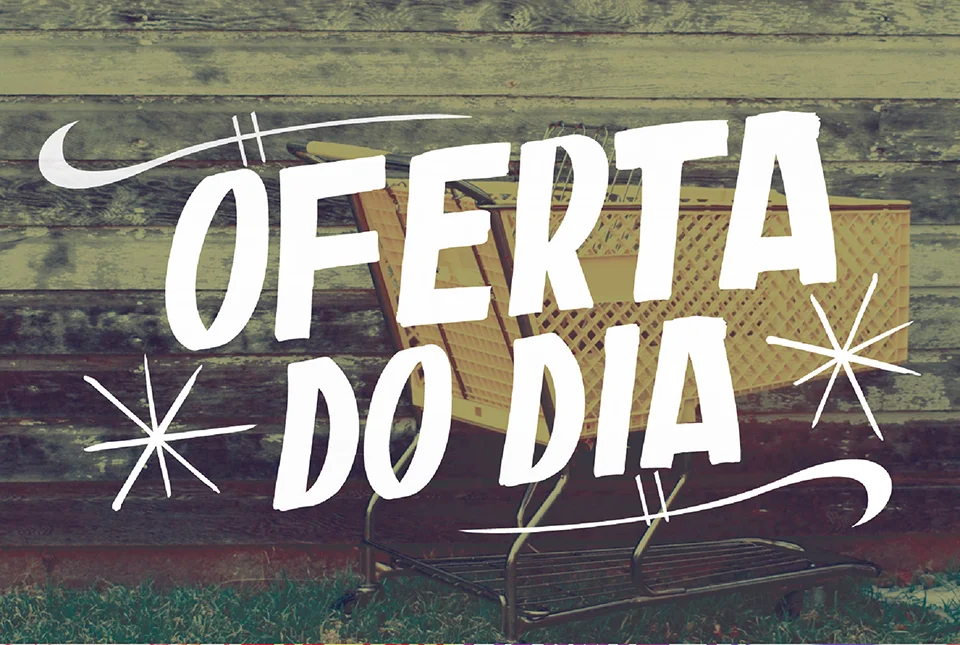
Oferta Do Dia Font
Oferta Do Dia Font is perfect for flash sale advertising, daily deal promotions, retail discount campaigns, limited-time offer graphics, Brazilian marketplace signage, promotional banner designs, special price announcements, and urgent shopping event materials.
This font is exciting because it radiates urgent excitement with bold letterforms that capture the thrilling energy and time-sensitive appeal of amazing daily deals and irresistible promotional offers. Oferta Do Dia Font brings commercial dynamism to designs through its attention-grabbing structure and promotional styling that feels like typography designed to stop shoppers in their tracks and create immediate purchase urgency. The font's promotional character makes it perfect for retail brands and want to communicate excitement, urgency, and the kind of irresistible value that drives customers to take immediate action.
The Oferta Do Dia Font family includes Regular, Bold, Light, Flash, Promo, and Deal variants, each designed to capture different levels of promotional intensity while maintaining the font's characteristic urgent appeal and commercial authenticity. The character set features dynamic details that enhance the font's connection to retail excitement and promotional campaigns.